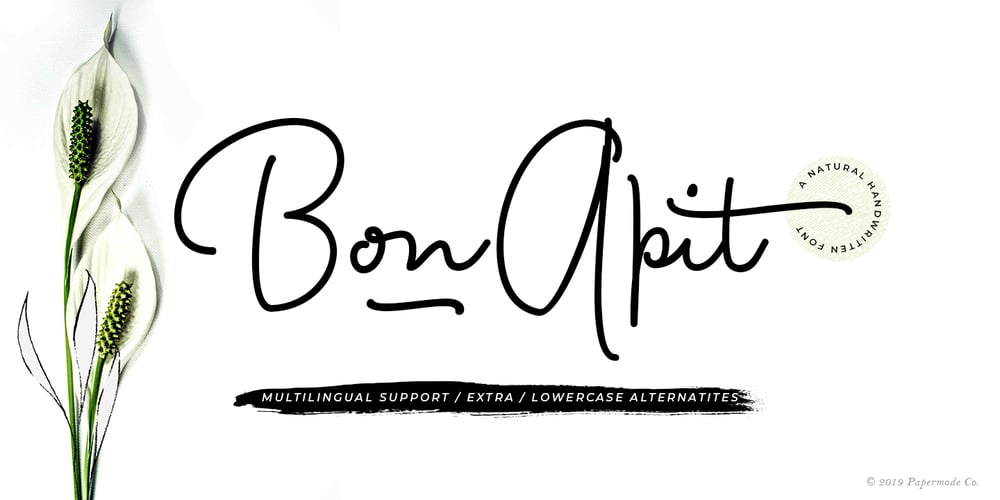
Bon Apit
Bon Apit font
Bon Apit Font Family was designed by Mira Kartika Sari and published by Papermode Co. Bon Apit contains 1 styles and family package options. Bon Apit is a monoline script typeface with extra features. Bon Apit comes in a handmade style and can perfectly be used for an elegant addition to any logo, invitation, product packaging, hand-written quote, greetings card, labels, logos, magazines, books, greeting/wedding cards, packaging, fashion, stationery, novels, labels or any type of advertising purpose.Includes multi-lingual support and special ligaturesIf you do not have programs that support OpenType features like Adobe Illustrator and CorelDraw X Versions, you can access all alternates using Font Book (Mac) or Character Map (Windows).Thank you!